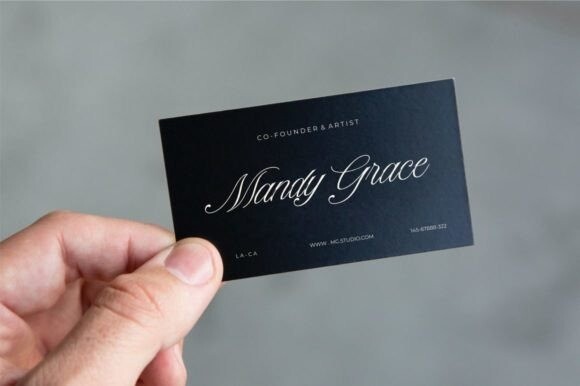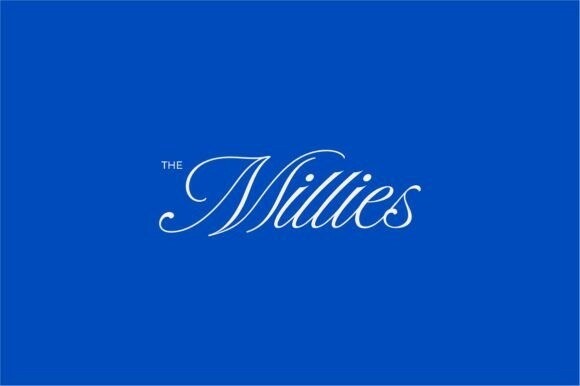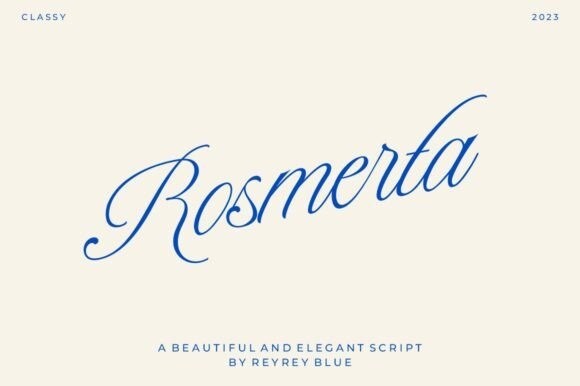
Rosmerta Script Font
Rosmerta Script Font, is a classy, vintage-style script font that exudes elegance and sophistication. With its thin and graceful letterforms, it captures the essence of timeless beauty. Perfect for adding a touch of refined charm to wedding invitations, branding, and editorial designs, Rosmerta brings a sense of nostalgia and grace to any project. Embrace the vintage allure with this exquisite and versatile font.